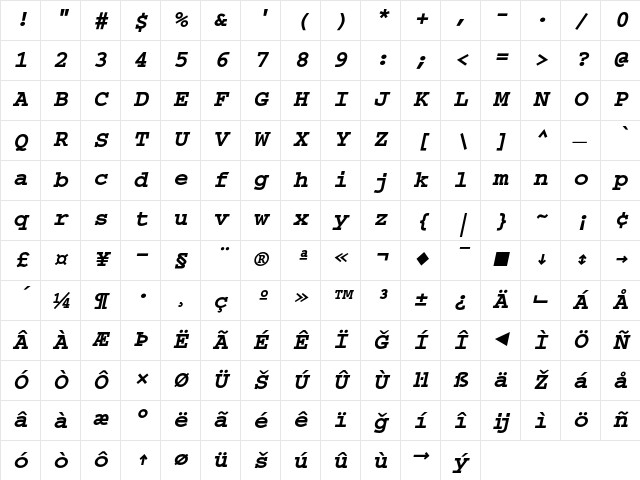
Courier Bold Oblique
Style: Bold Oblique
Courier Family
Complete Courier Bold Oblique glyph index. Displaying only characters natively supported by Courier Bold Oblique font.
Design Context for Courier
Courier uses fixed-width spacing throughout, giving it the structured, systematic character associated with coding environments and technical documentation. The slanted form adds forward momentum and visual energy. Its bold stroke weight gives it real presence on the page.